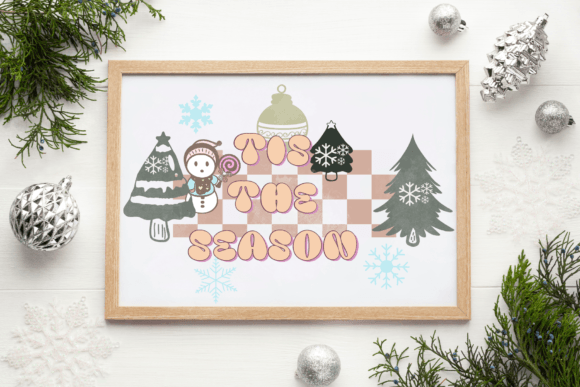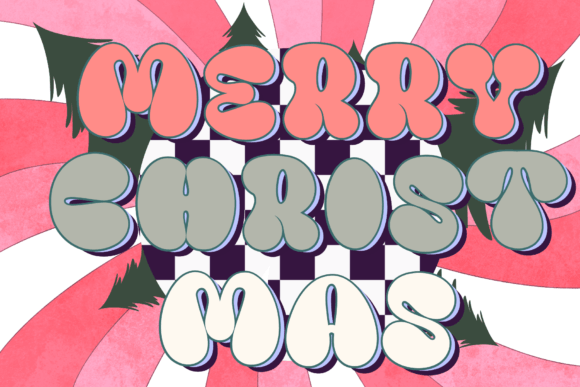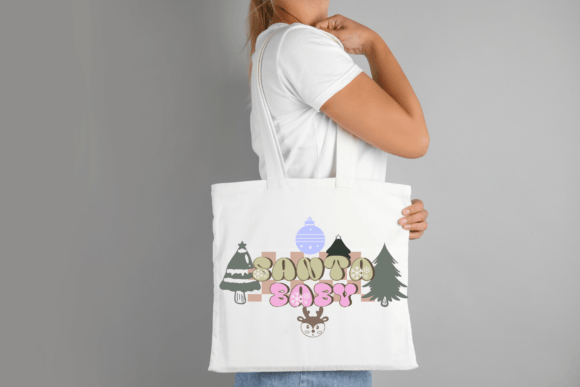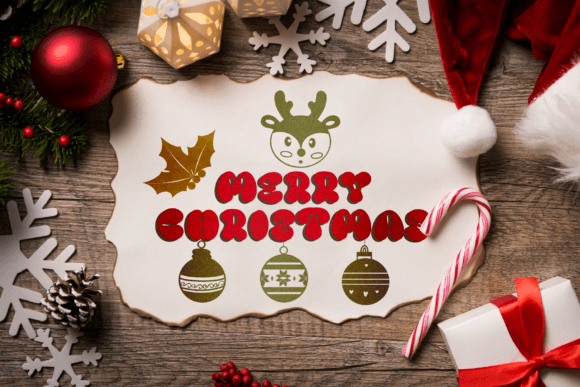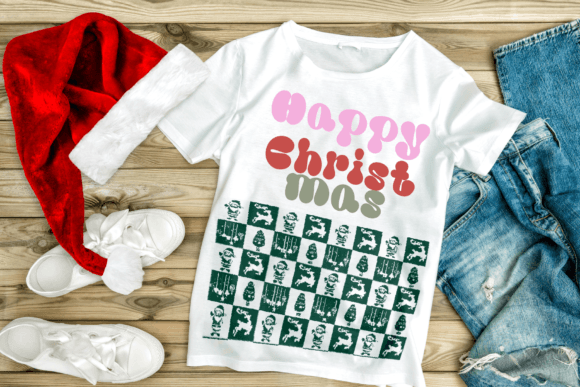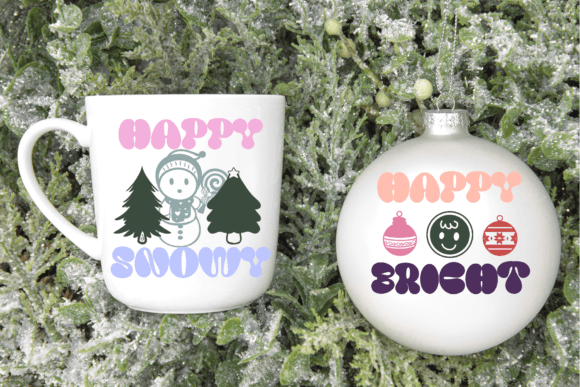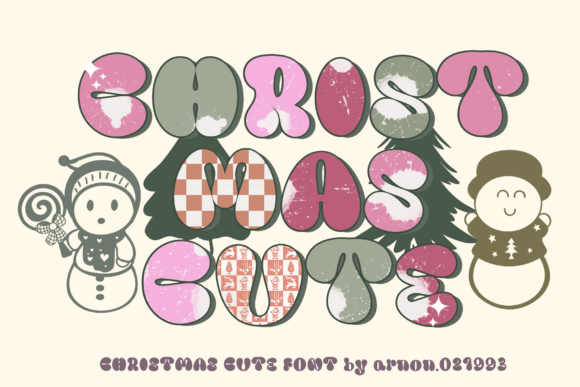
Christmas Cute Font: Add a Joyful Touch to Your Designs
Are you looking for a font that can add a playful and festive touch to your designs? Look no further than Christmas Cute Font! This adorable display font is perfect for designers and crafters who want to create joyful and eye-catching projects. In this article, we’ll explore the features and benefits of Christmas Cute Font and show you how to make the most of this beautiful font.
What is Christmas Cute Font?
Christmas Cute Font is a cute and quirky display font that is designed to add a festive touch to your designs. Its playful and whimsical style makes it perfect for a variety of projects, from holiday cards and decorations to branding and advertising materials. With its bold and cheerful appearance, Christmas Cute Font is sure to grab attention and put a smile on people’s faces.
Features of Christmas Cute Font
So, what makes Christmas Cute Font so special? Here are some of its key features:
- Cute and Quirky Design: Christmas Cute Font has a unique and playful design that is sure to stand out. Its bold and cheerful appearance makes it perfect for creating eye-catching projects.
- Display Font: Christmas Cute Font is a display font, which means it’s designed to be used in large sizes. It’s perfect for headlines, titles, and other prominent text elements.
- Festive and Joyful: Christmas Cute Font has a festive and joyful feel that’s perfect for holiday projects. It’s sure to add a touch of cheer to your designs.
Benefits of Using Christmas Cute Font
So, why should you use Christmas Cute Font in your designs? Here are some of the benefits:
- Adds a Festive Touch: Christmas Cute Font is perfect for adding a festive touch to your designs. Whether you’re creating holiday cards, decorations, or advertising materials, this font is sure to get you in the holiday spirit.
- Grabs Attention: With its bold and cheerful appearance, Christmas Cute Font is sure to grab attention. It’s perfect for creating eye-catching headlines and titles.
- Versatile: Christmas Cute Font is a versatile font that can be used in a variety of projects. Whether you’re a designer, crafter, or DIY enthusiast, this font is sure to be a valuable addition to your toolkit.
How to Use Christmas Cute Font
So, how can you use Christmas Cute Font in your designs? Here are some ideas:
- Holiday Cards and Decorations: Use Christmas Cute Font to create festive holiday cards, decorations, and other projects.
- Branding and Advertising: Use Christmas Cute Font to add a playful and festive touch to your branding and advertising materials.
- DIY Projects: Use Christmas Cute Font to add a personal touch to your DIY projects, such as scrapbooking, journaling, and crafting.
Here are some tips and tricks for getting the most out of Christmas Cute Font:
- Use it in Large Sizes: Christmas Cute Font is designed to be used in large sizes, so don’t be afraid to experiment with different sizes and layouts.
- Pair it with Other Fonts: Christmas Cute Font pairs well with other fonts, so try experimenting with different combinations to create a unique look.
- Experiment with Colors: Christmas Cute Font looks great in a variety of colors, so don’t be afraid to experiment with different color schemes and combinations.
| Font Name | Christmas Cute Font |
| Author | arnon.021993 |
In conclusion, Christmas Cute Font is a beautiful and versatile font that’s perfect for designers and crafters who want to add a festive touch to their projects. With its cute and quirky design, bold and cheerful appearance, and festive and joyful feel, this font is sure to grab attention and put a smile on people’s faces. Whether you’re creating holiday cards and decorations, branding and advertising materials, or DIY projects, Christmas Cute Font is a valuable addition to your toolkit.